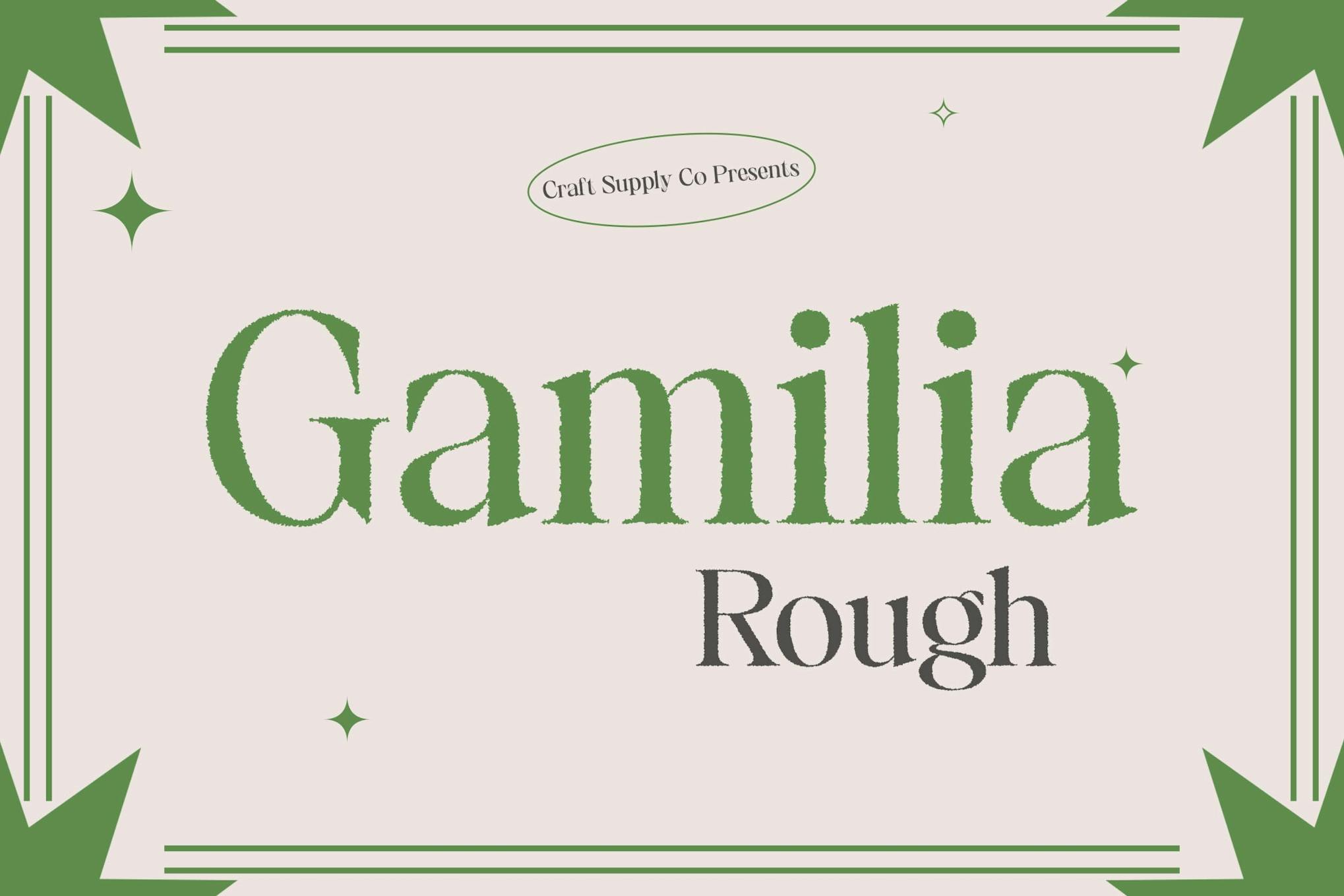
Gamilia Rough Font
The Gamilia Rough Font is perfect for vintage poster design, distressed branding projects, weathered packaging labels, artisan product marketing, rustic signage applications, craft brewery branding, grunge magazine layouts, and authentic handcrafted business logos.
What makes Gamilia Rough Font so exciting is its unique combination of artistic elegance and rugged texture that creates a distinctively sophisticated approach to distressed typography. This captivating typeface features beautifully weathered letterforms with organic imperfections that maintain an underlying sense of refinement and grace despite their rough appearance. The font's carefully crafted distressed elements create visual interest and storytelling power while preserving the essential character that makes each letter feel both authentic and intentionally designed. Its distinctive balance between roughness and elegance makes it perfect for brands that want to convey both craftsmanship and sophistication, offering a more refined alternative to typical rough fonts without sacrificing the authentic character that audiences crave.
The Gamilia Rough Font family includes comprehensive variations designed to showcase different aspects of refined rough typography and weathered elegance. The collection typically features multiple weights from Light to Bold, each maintaining the signature distressed characteristics while offering diverse creative possibilities. Many versions include italic variations with enhanced texture flow, alternative characters featuring varied weathering patterns, decorative ligatures that enhance the handcrafted feel, and extended character sets supporting international languages for global design applications and multicultural branding projects.
The font's remarkable versatility excels across all design mediums, from digital applications to traditional print materials. Its carefully balanced distressed texture maintains readability and elegance at various sizes while preserving the distinctive rough character that makes it so appealing to audiences seeking authentic design elements with sophisticated appeal.
Creative professionals across industries trust this distinctive rough font for projects requiring both genuine character and refined aesthetics. Whether developing brand identities for upscale artisanal businesses, creating marketing materials for premium craft products, or designing promotional content for sophisticated lifestyle brands, this font delivers the perfect combination of authentic weathered beauty and elegant professionalism that elevates any creative project.